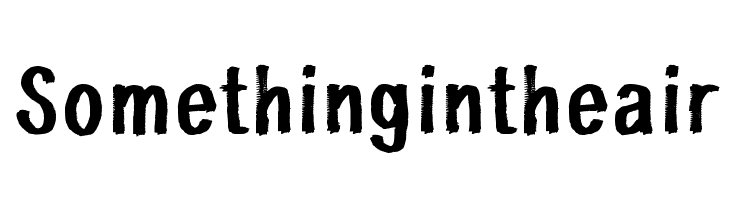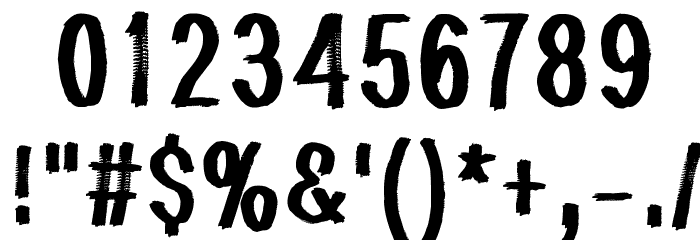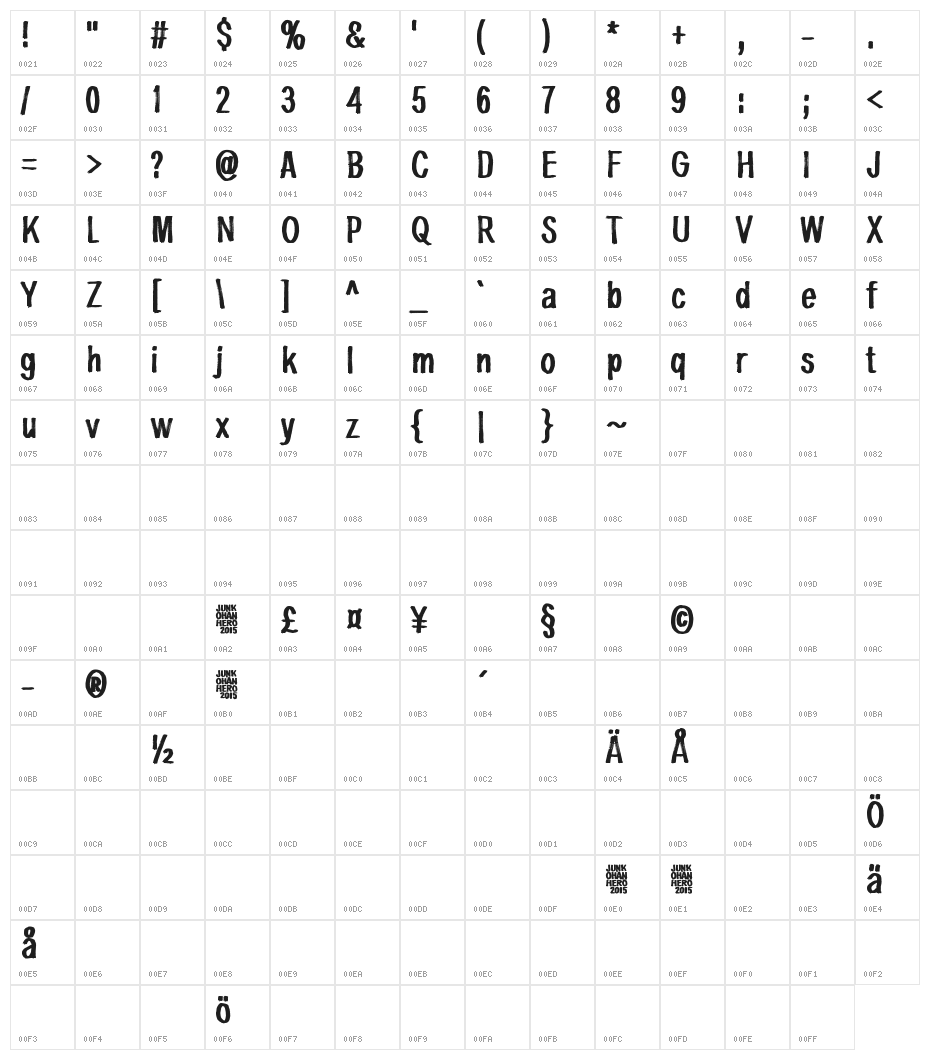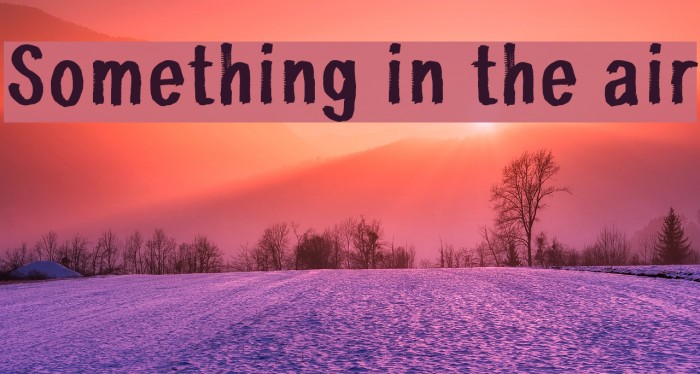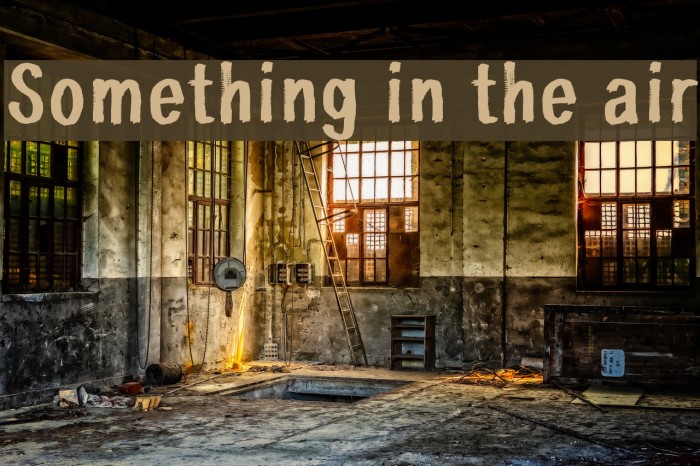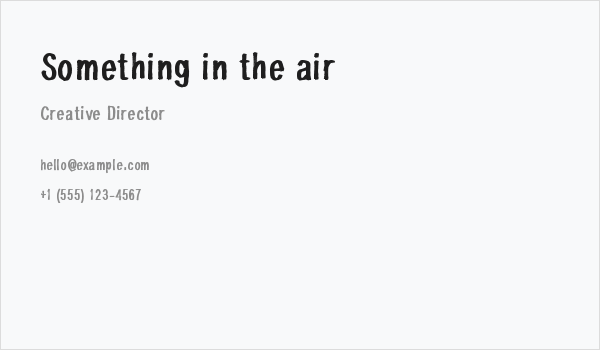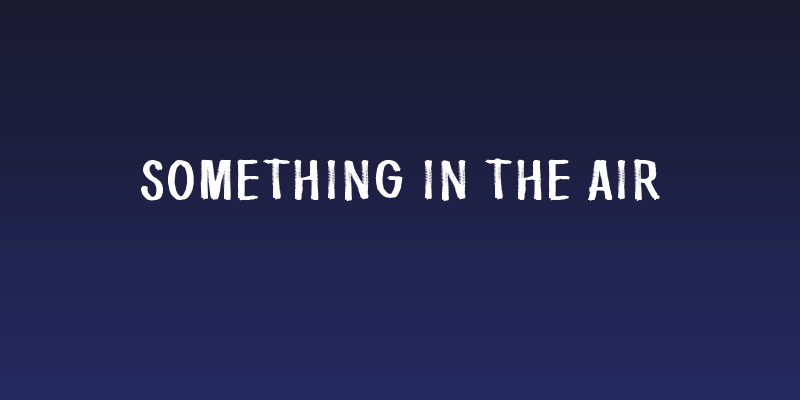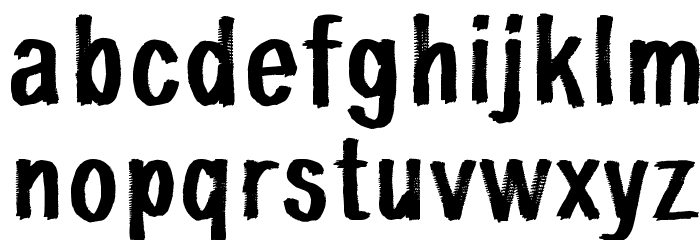
Something in the air Font
Something in the air Description
This font features a bold and expressive style with a hand-painted appearance. The characters are slightly irregular, adding a dynamic and energetic feel. The strokes are thick and textured, giving a sense of movement and spontaneity. The uppercase and lowercase letters maintain a consistent style, while the numerals and special characters complement the overall design. This font is ideal for projects that require a bold statement and a touch of artistic flair.
| Proposed Projects | Ideal for posters, branding, packaging, and any design that requires a bold, artistic touch. |